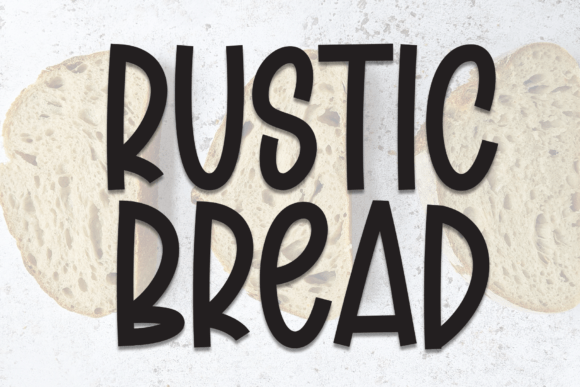
Rustic Bread Font: The Perfect Choice for a Fresh and Friendly Vibe
In the world of typography, fonts play a crucial role in conveying the tone and personality of a brand or design project. When it comes to creating a fresh and friendly vibe, the Rustic Bread font is an excellent choice. This casual and neat display font has gained popularity among designers and brands looking for a unique and approachable typography solution. In this article, we’ll dive into the features and benefits of the Rustic Bread font, and explore its uses in various design projects.
What is Rustic Bread Font?
Rustic Bread is a display font that boasts a clean and relaxed structure, making it perfect for a wide range of design applications. Its fresh and friendly vibe is achieved through its simple yet charming design, which adds a touch of approachability to any project. The font’s neat and organized appearance ensures that it remains polished and professional, making it suitable for use in packaging, posters, social media graphics, and more.
Key Features of Rustic Bread Font
- Clean Lines: The Rustic Bread font features clean and well-defined lines that contribute to its neat and organized appearance.
- Relaxed Structure: The font’s relaxed structure gives it a casual and friendly feel, making it perfect for designs that require a approachable tone.
- Fresh and Friendly Vibe: The Rustic Bread font radiates a fresh and friendly vibe, making it ideal for brands and designs that want to convey a sense of approachability and warmth.
- Polished Appearance: Despite its casual nature, the Rustic Bread font maintains a polished appearance, making it suitable for use in a wide range of design projects.
Uses of Rustic Bread Font
The Rustic Bread font is versatile and can be used in various design projects, including:
Packaging Design
The Rustic Bread font is perfect for packaging design, particularly for food and beverage products, where a fresh and friendly vibe is essential. Its clean and neat appearance ensures that the font remains legible and easy to read, even on smaller packaging designs.
Poster Design
Rustic Bread font is also suitable for poster design, where its bold and eye-catching appearance can help grab the audience’s attention. Its relaxed structure and clean lines make it easy to read and understand, even from a distance.
Social Media Graphics
In social media graphics, the Rustic Bread font can add a touch of personality and approachability to a brand’s online presence. Its fresh and friendly vibe makes it perfect for creating engaging and shareable content.
Benefits of Using Rustic Bread Font
The Rustic Bread font offers several benefits to designers and brands, including:
Unique and Memorable
The Rustic Bread font is unique and memorable, making it an excellent choice for brands looking to stand out from the competition.
Versatile
The font’s versatility makes it suitable for use in various design projects, from packaging and posters to social media graphics and more.
Easy to Read
The Rustic Bread font is easy to read, even in smaller sizes, making it perfect for designs where legibility is crucial.
Polished Appearance
The font’s polished appearance ensures that it remains professional and suitable for use in a wide range of design projects.
Tips for Using Rustic Bread Font
To get the most out of the Rustic Bread font, here are some tips to keep in mind:
Use it as a Display Font
The Rustic Bread font is best used as a display font, where its bold and eye-catching appearance can be fully utilized.
Pair it with Other Fonts
To add contrast and visual interest to your design, consider pairing the Rustic Bread font with other fonts that complement its style.
Experiment with Colors
The Rustic Bread font looks great in a variety of colors, so don’t be afraid to experiment and find the perfect color scheme for your design.
In conclusion, the Rustic Bread font is an excellent choice for designers and brands looking for a fresh and friendly vibe. Its clean lines, relaxed structure, and polished appearance make it perfect for use in a wide range of design projects, from packaging and posters to social media graphics and more. With its unique and memorable design, the Rustic Bread font is sure to add a touch of personality and approachability to any design project.